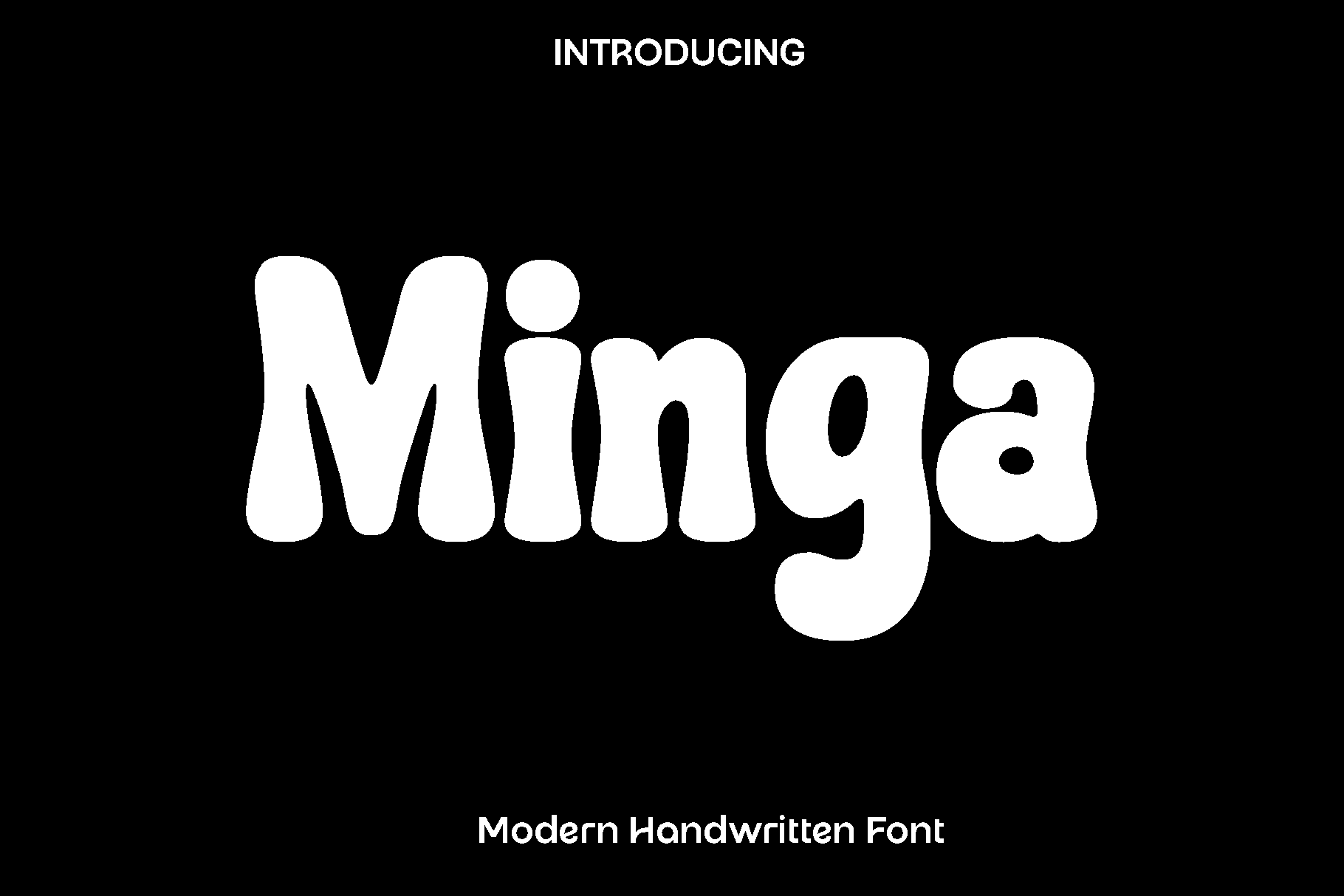
Minga - Playful Handwritten Font
Minga is a handwritten font designed to capture the joy, nostalgia, and expressive charm of childhood creativity. Inspired by playful doodles, vintage lettering, and carefree moments, Minga brings a warm and personal touch to your designs. Its organic strokes and slightly imperfect forms create an authentic handwritten feel that makes every word look lively and full of character.
This font shines in projects that need a fun and approachable personality. It is perfect for branding, packaging, posters, children themed designs, social media graphics, invitations, and creative merchandise. Whether you are designing for a playful brand or adding a nostalgic twist to your visuals, Minga delivers a unique style that feels both vintage and fresh.
Minga feels friendly, artistic, and full of life. The natural flow of its letterforms makes it easy to use while still maintaining a distinctive look that stands out. It is especially effective for headlines, logos, and decorative text where personality matters most. With its charming appearance, Minga helps create designs that feel more human, expressive, and visually engaging.
Carefully crafted with stylistic details, Minga gives designers the freedom to experiment and bring creative ideas to life. It adds an aesthetic and memorable quality to any project, making it a valuable addition to your font collection.
Minga Handwritten Font Features:
• Handwritten style with playful vintage character
• Stylistic glyph details for creative expression
• Punctuation, numbers, and symbols
• Uppercase and lowercase
• OpenType features
• Multilingual support for a wide range of languages